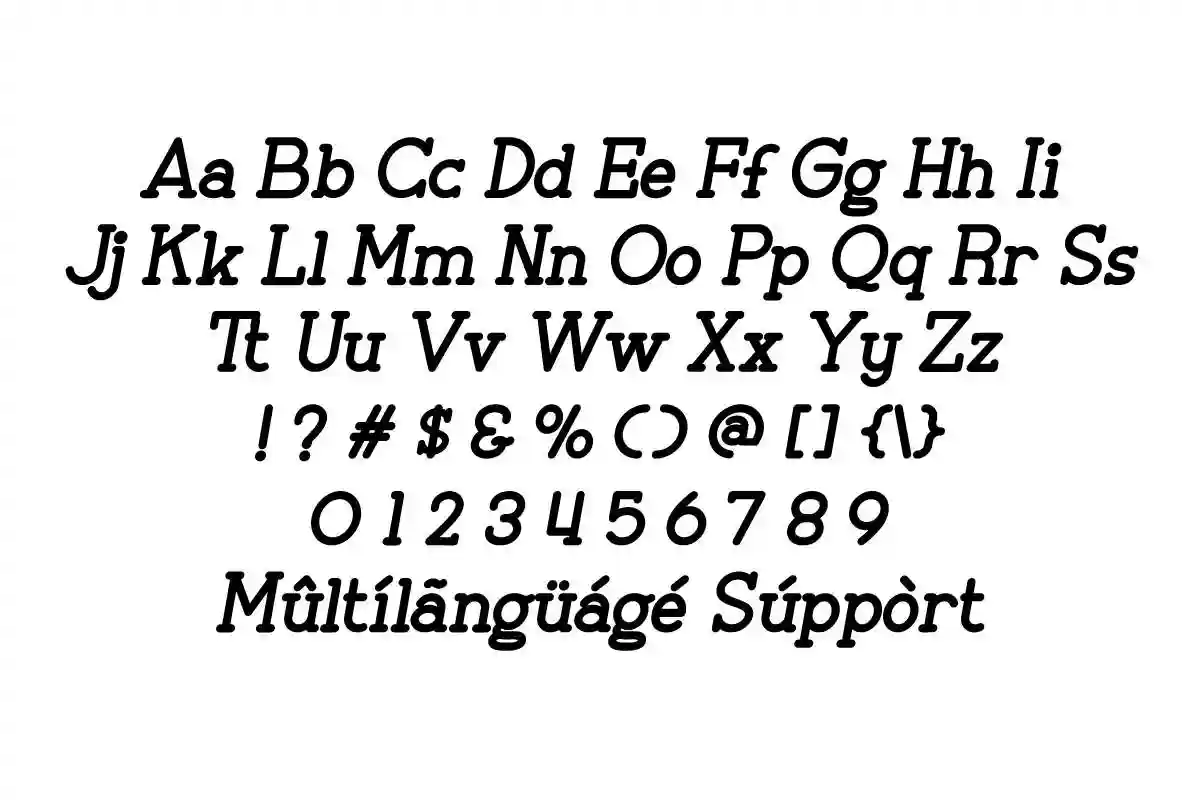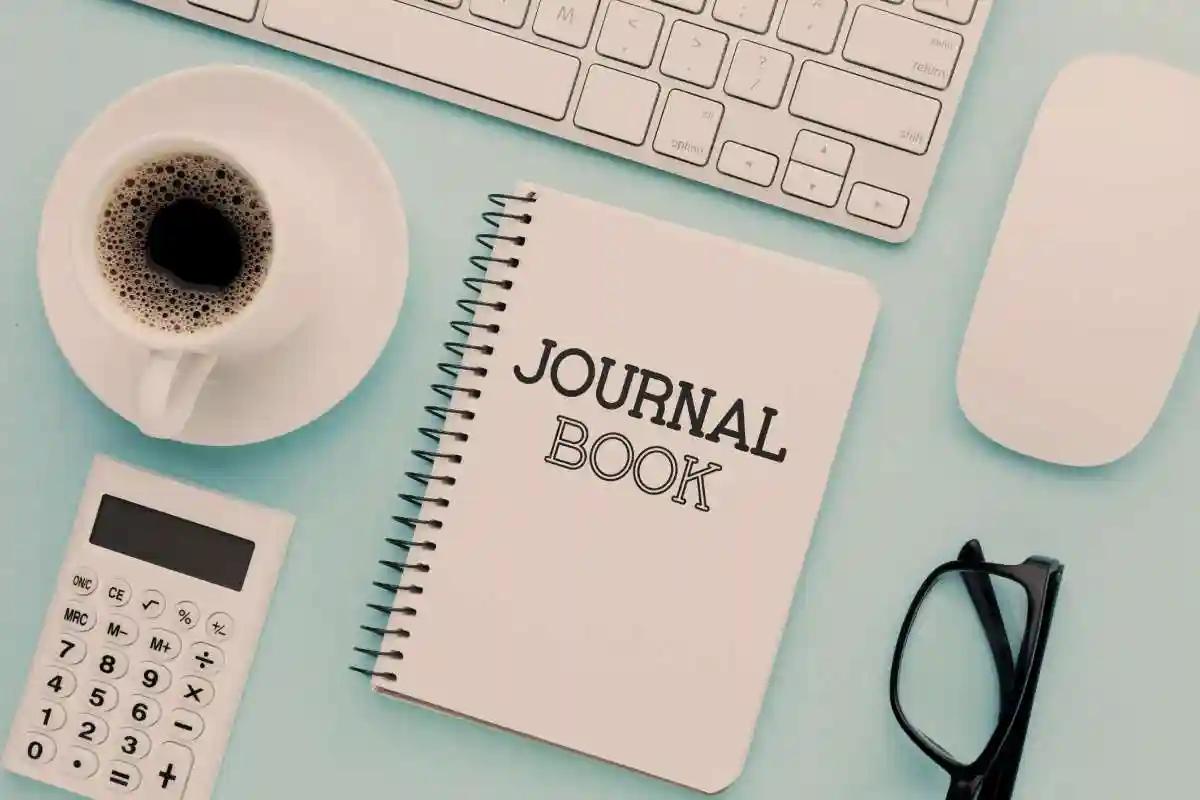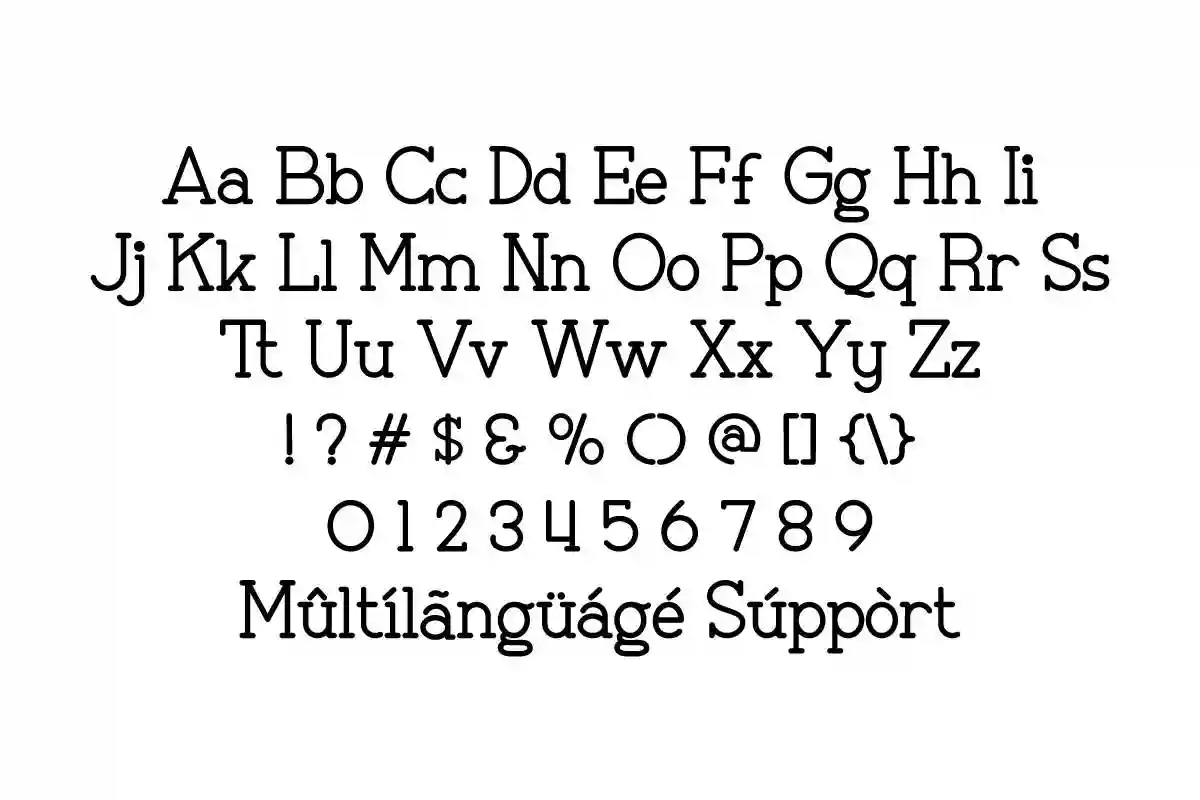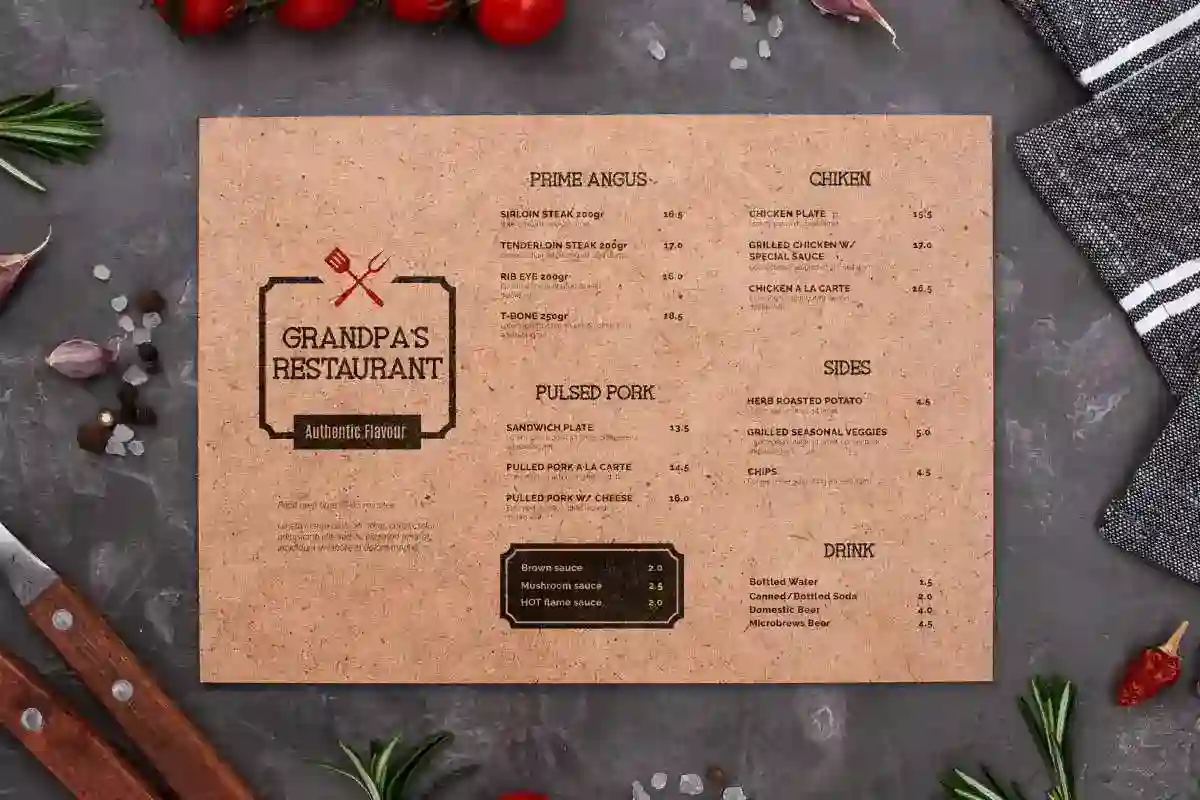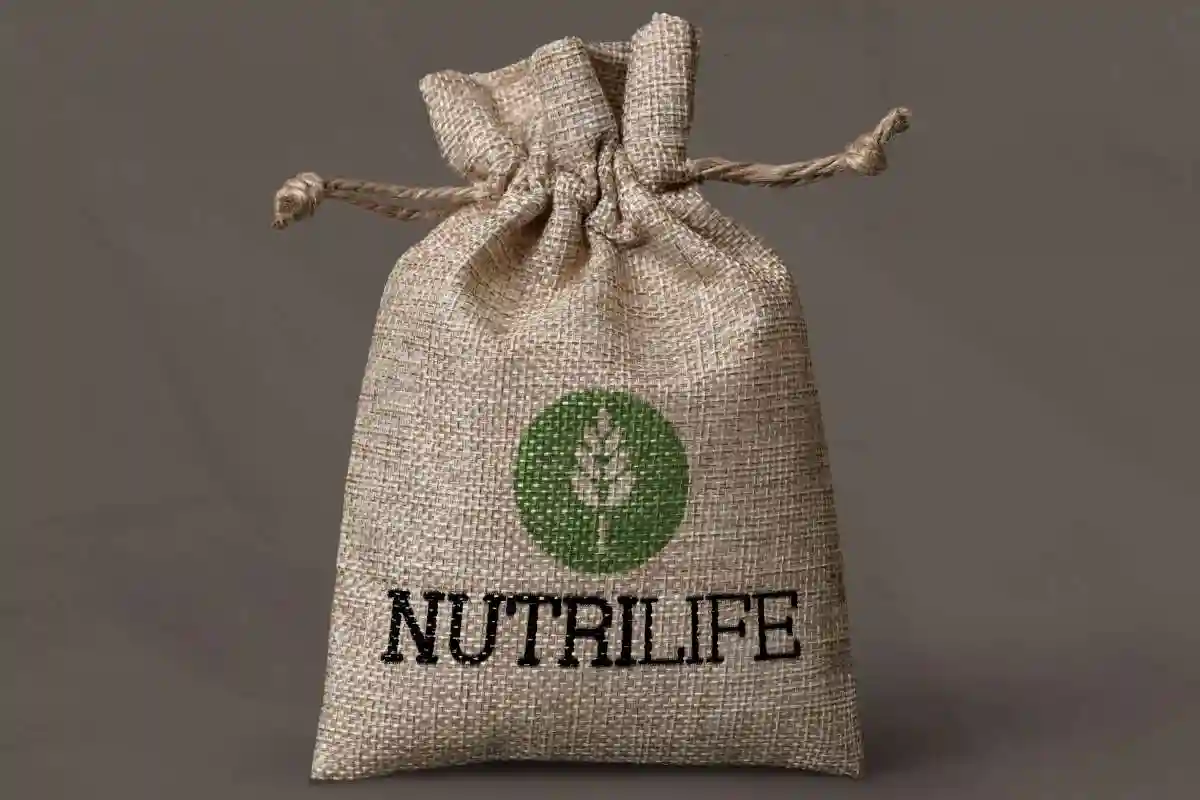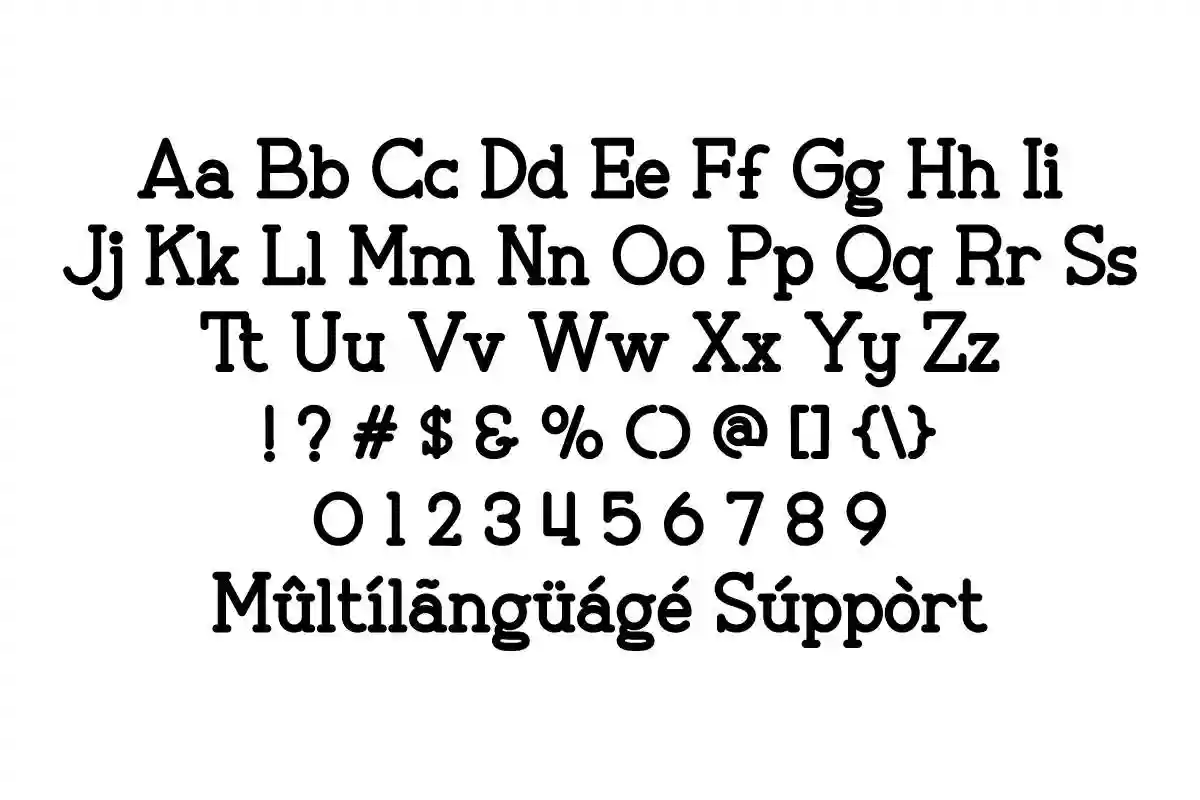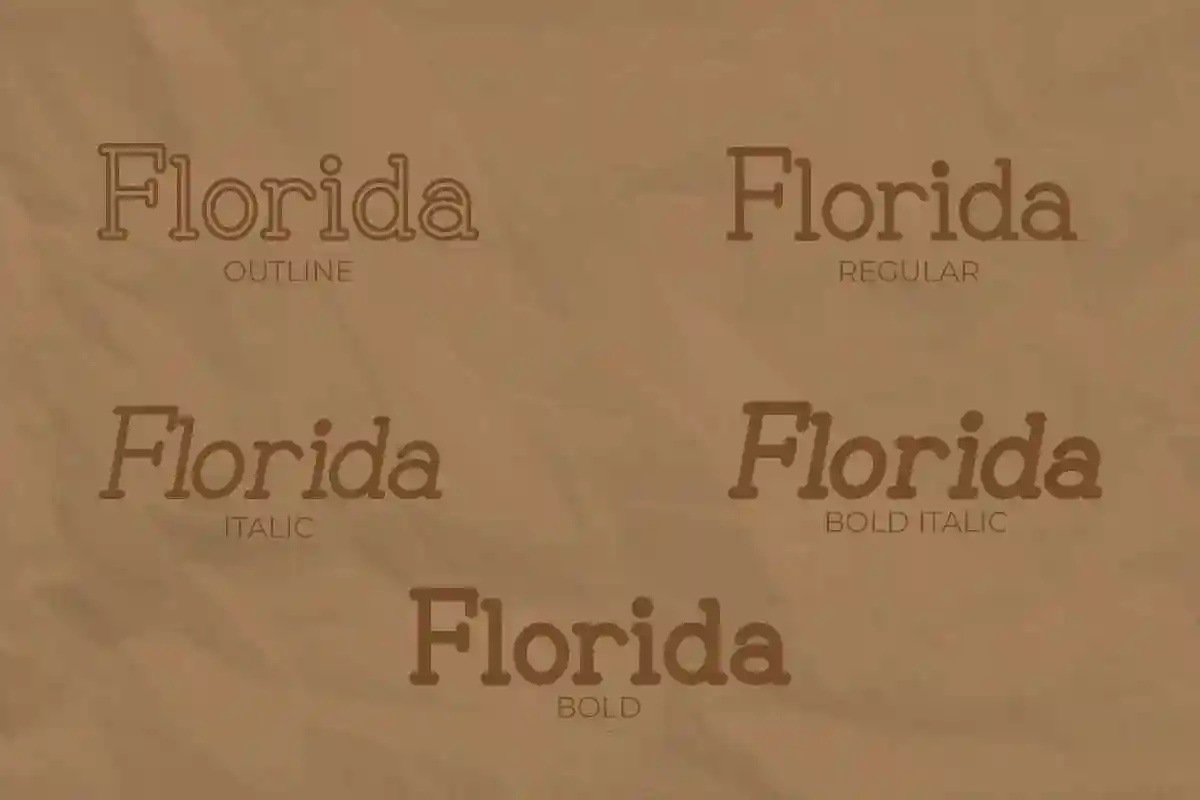
Freshmen Font
Freshmen Font is a serif display font family designs made by NihStudio. This font will be great for flyer, logo branding, products packaging, menu paper, signage etc.
Freshmen Font comes with five styles : Regular, Italic, Bold, Outline and Bold Italic. After purchase, On the zip package you will get :
Freshmen Font will be great for any projects including : flyer, logo branding, products packaging, signage, stationery, etc. This font comes with casual and exclusive which makes it stand out. The Font had been tested Work on PC & Mac. This font has a stunning characters set, perfectly managed with well spaced and kerning. Accessible in the Adobe Illustrator, Adobe Photoshop, Adobe InDesign, even work on Microsoft Word. It’s also PUA Encoded Characters – Fully accessible without additional design software.